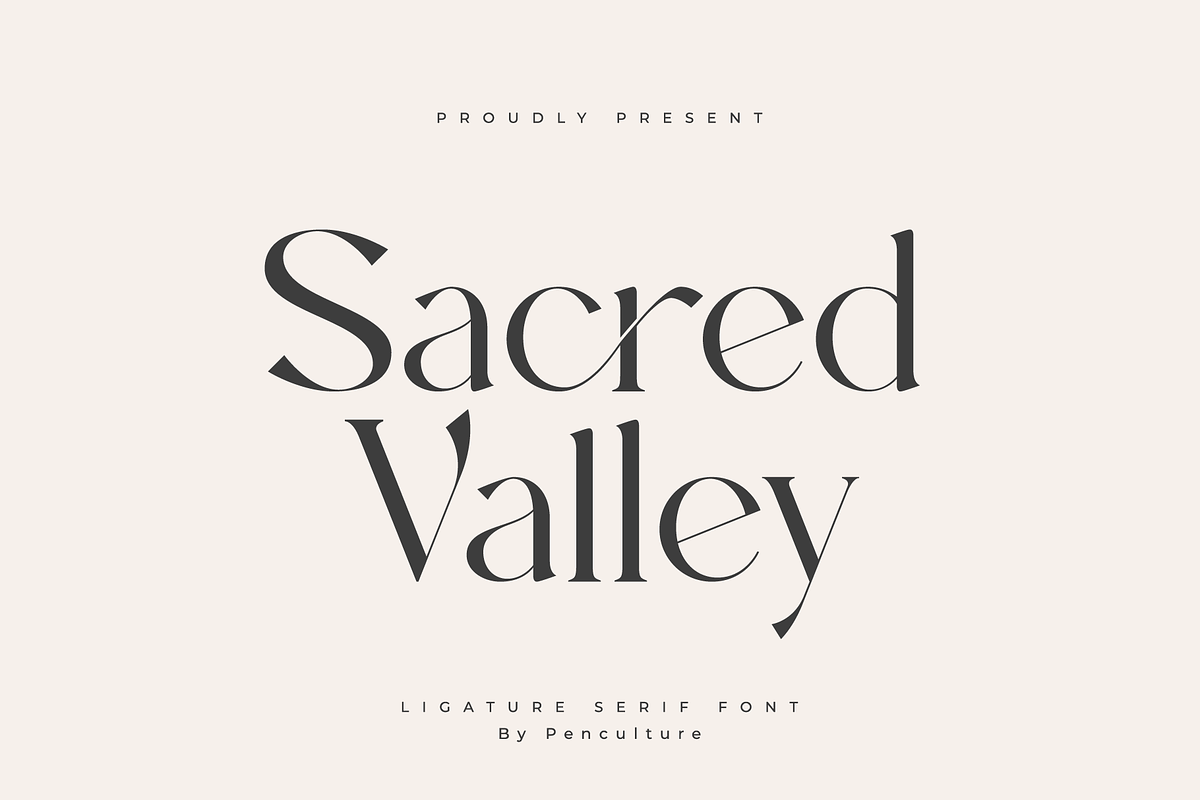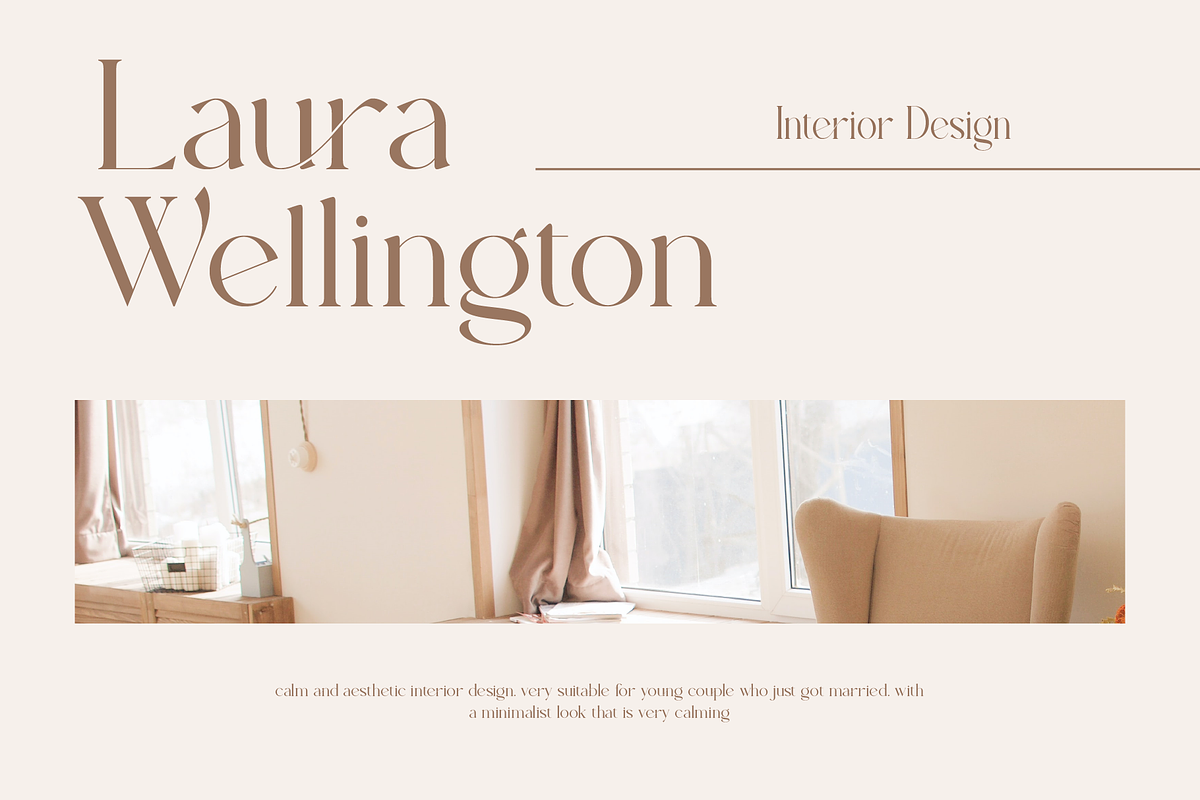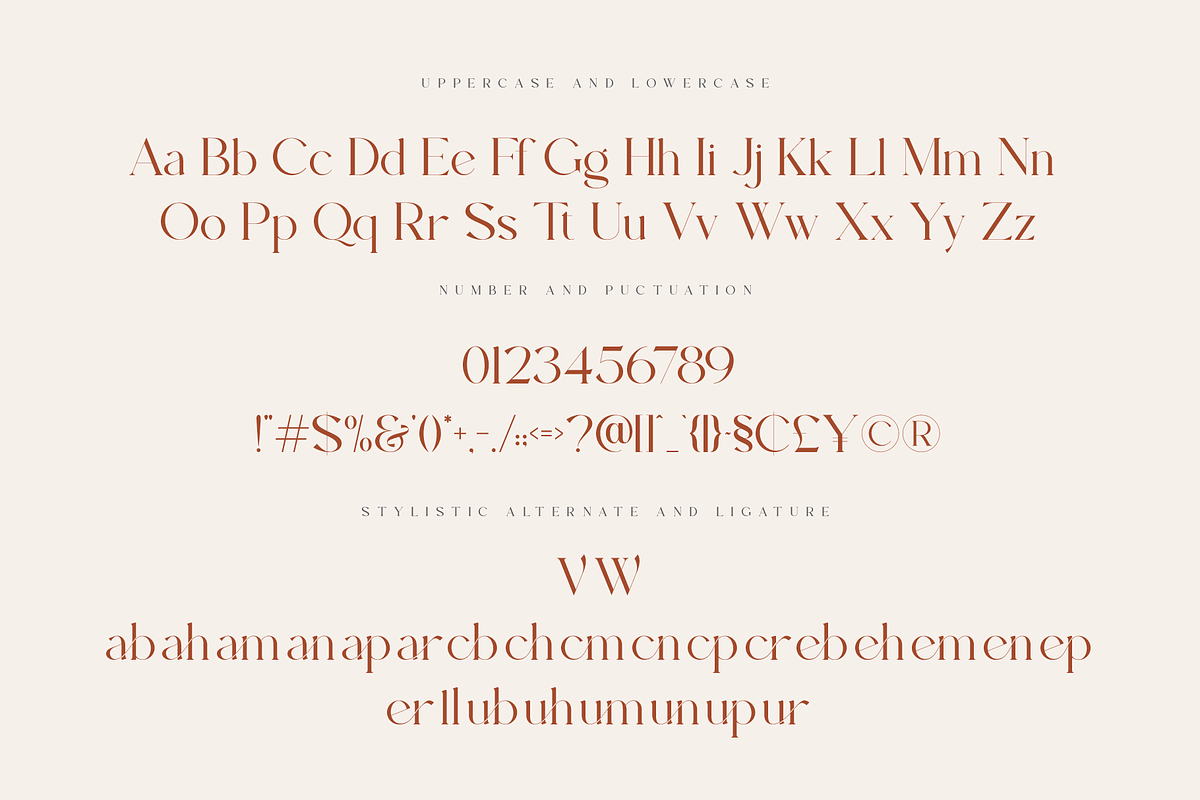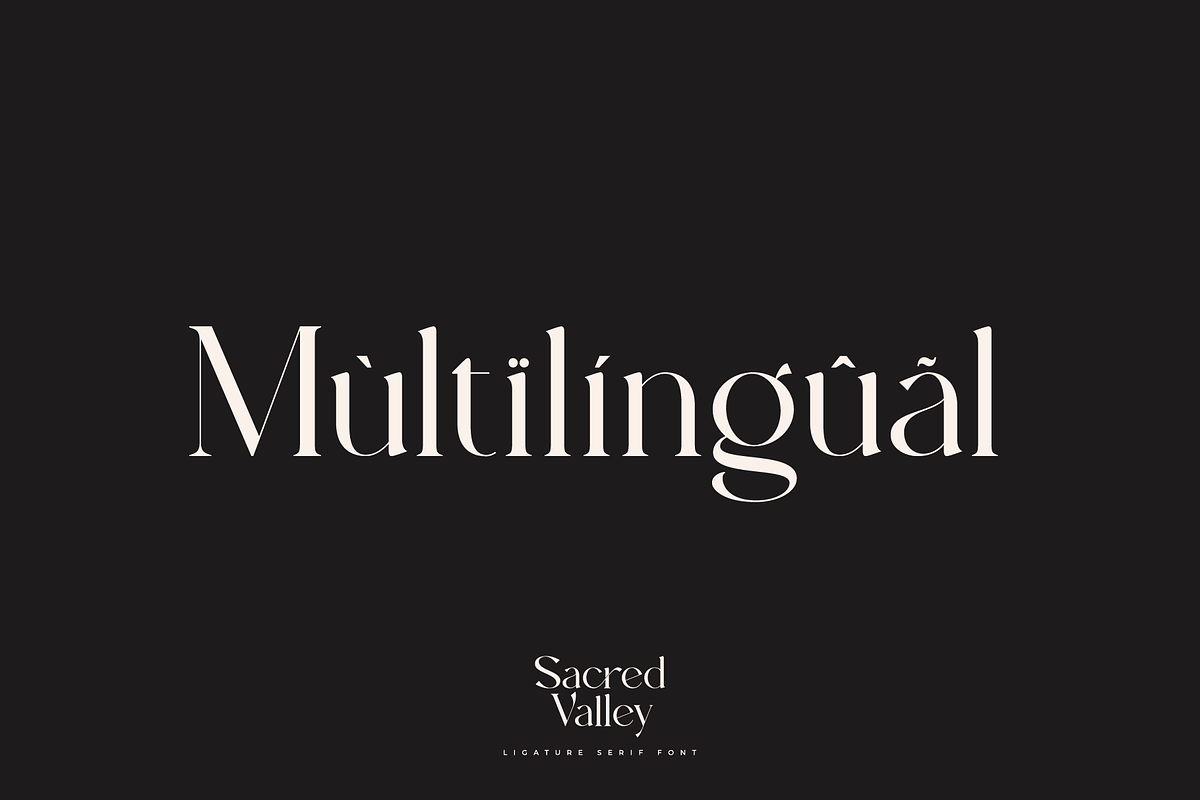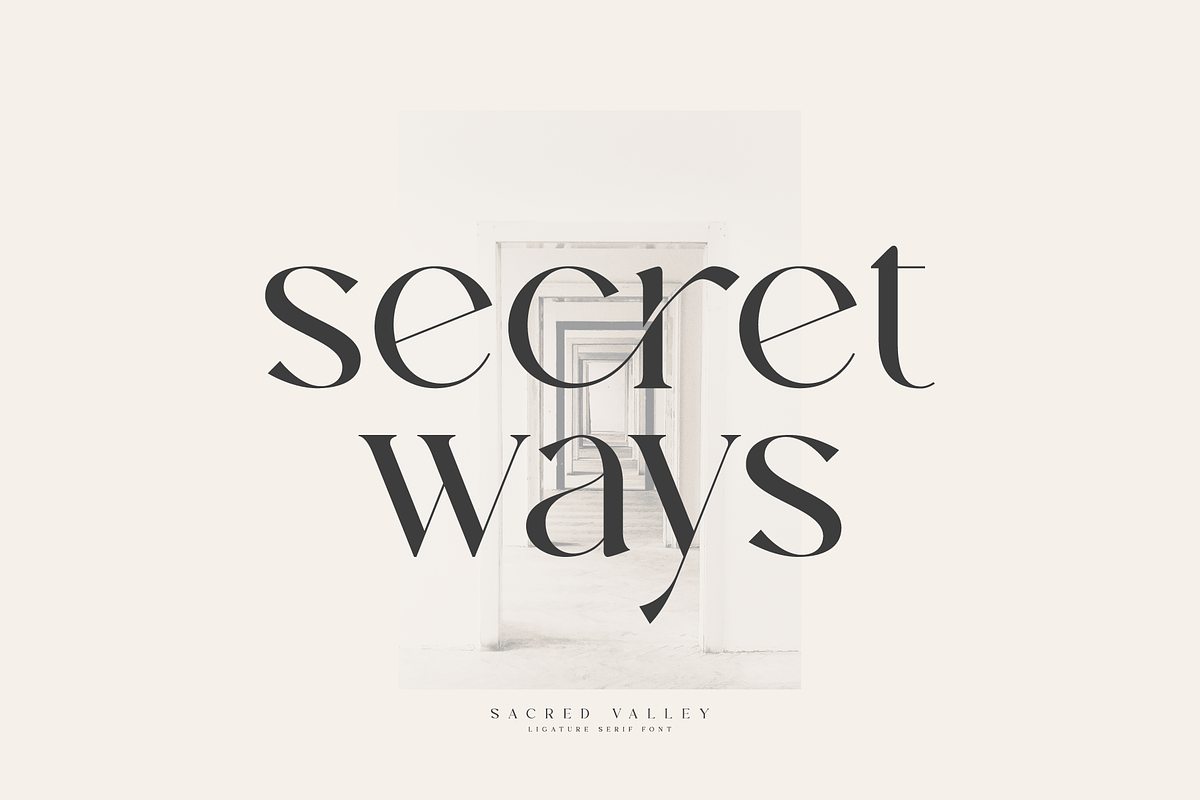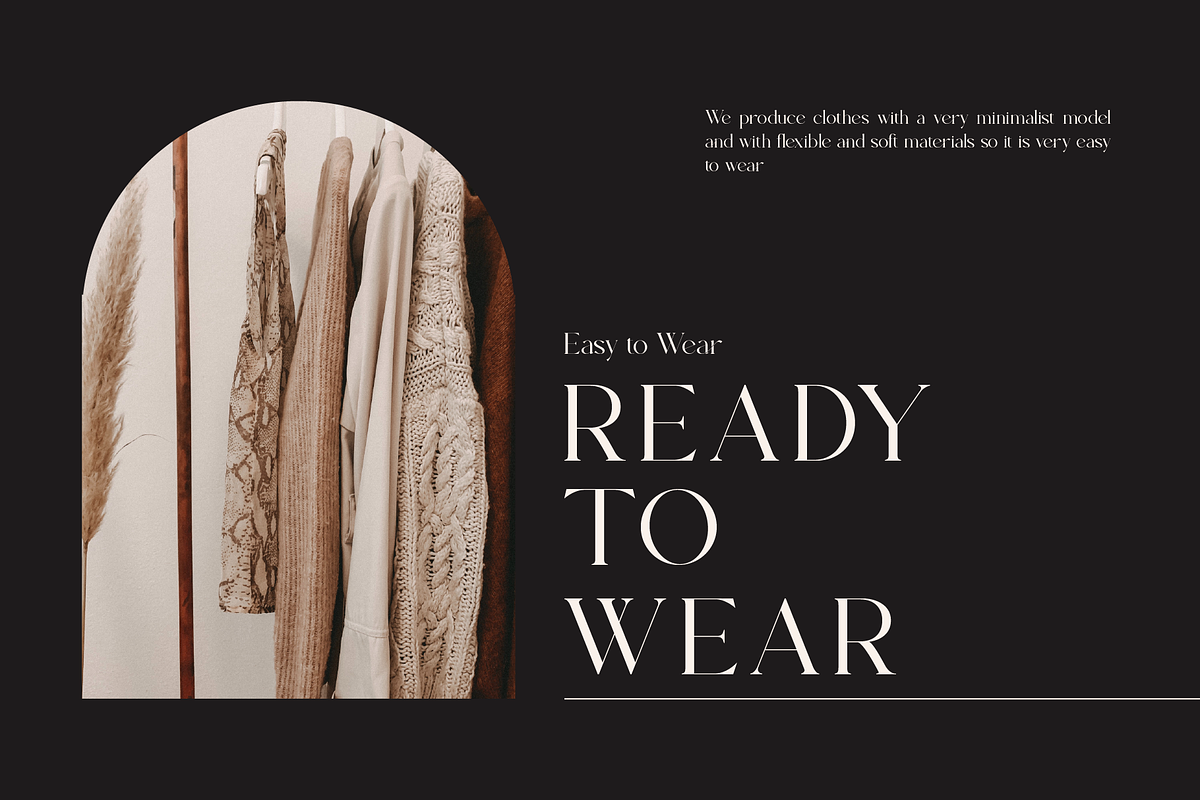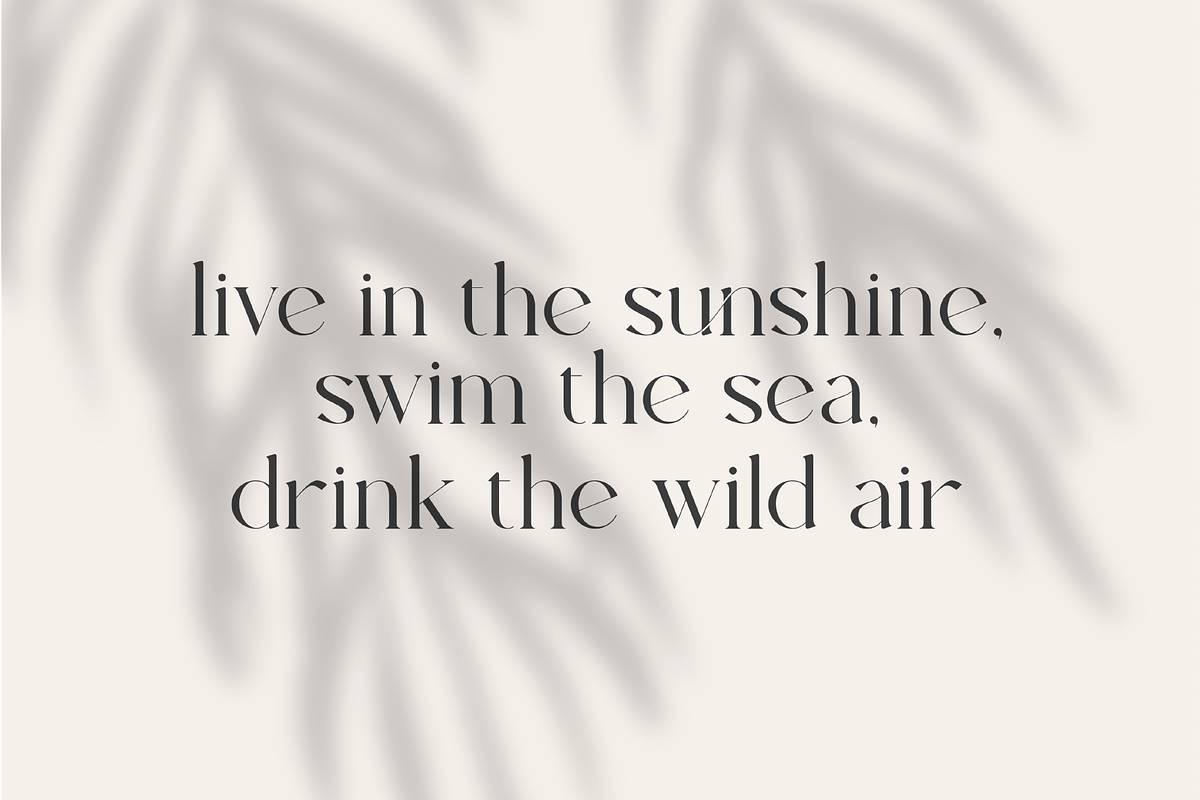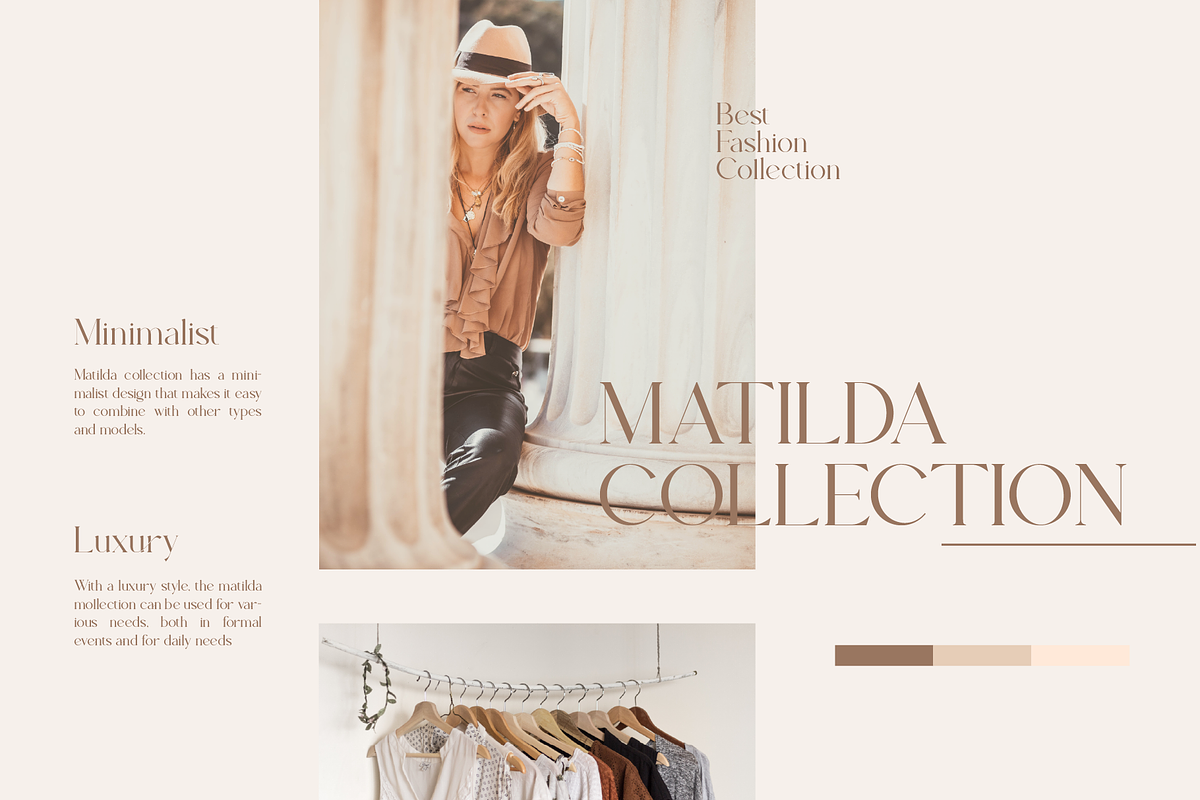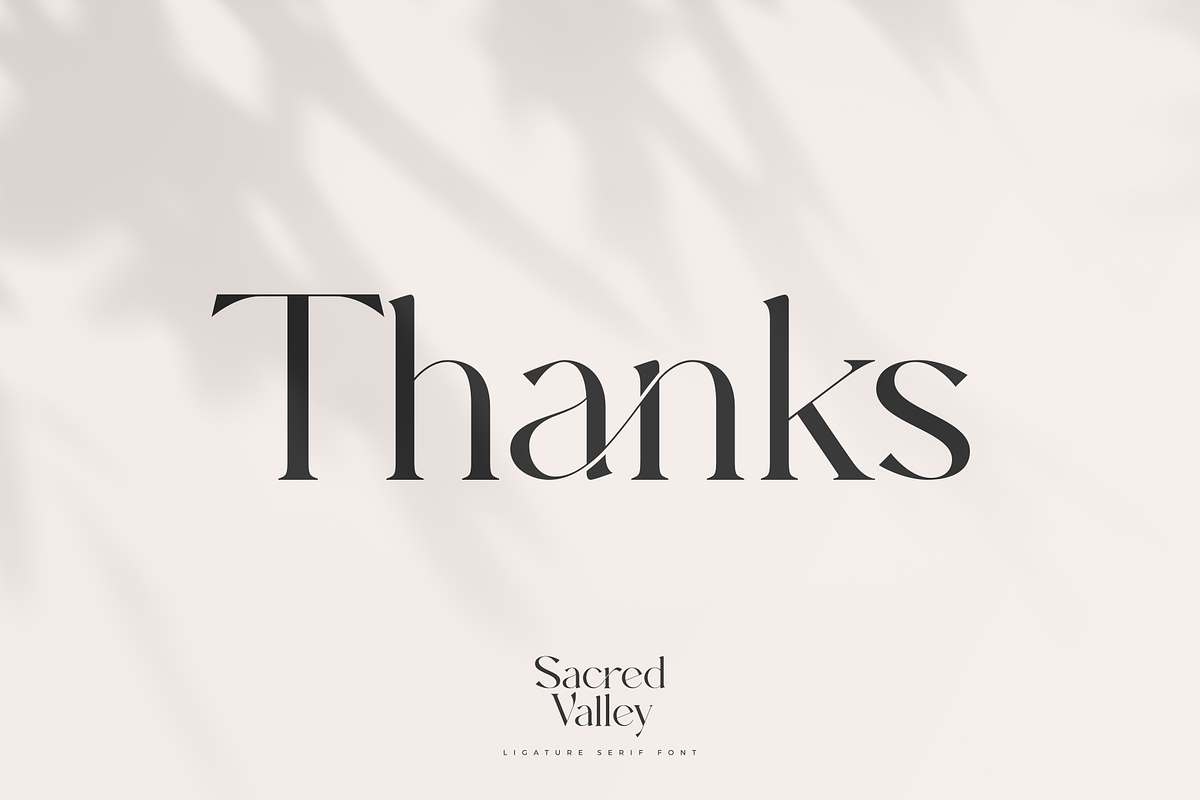
Sacred Valley - Ligature Serif Font
Proudly present "Sacred Valley - Ligature Serif Font"
Sacred Valley is modern ligature serif font with unique and elegant style. This font perfect for branding, logo, invitation, magazine, and many more.
- Outstanding uppercase and lowercase
- Awesome ligature